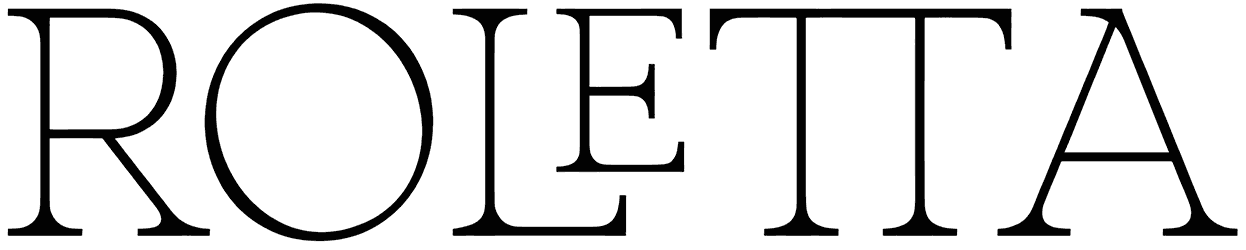
Roletta Font
One of the great things about Roletta is that it doesn’t need to make things too complicated to impress the viewers. That’s how this serif font ends up in your glassware logos, posters for planetarium shows, business cards for authors and translators, and plenty of other projects.
It feels so light and neat, with enough fancy details in its design such as tasteful ligatures, that keep Roletta in the center of attention, especially since it’s only made of chic capitals.